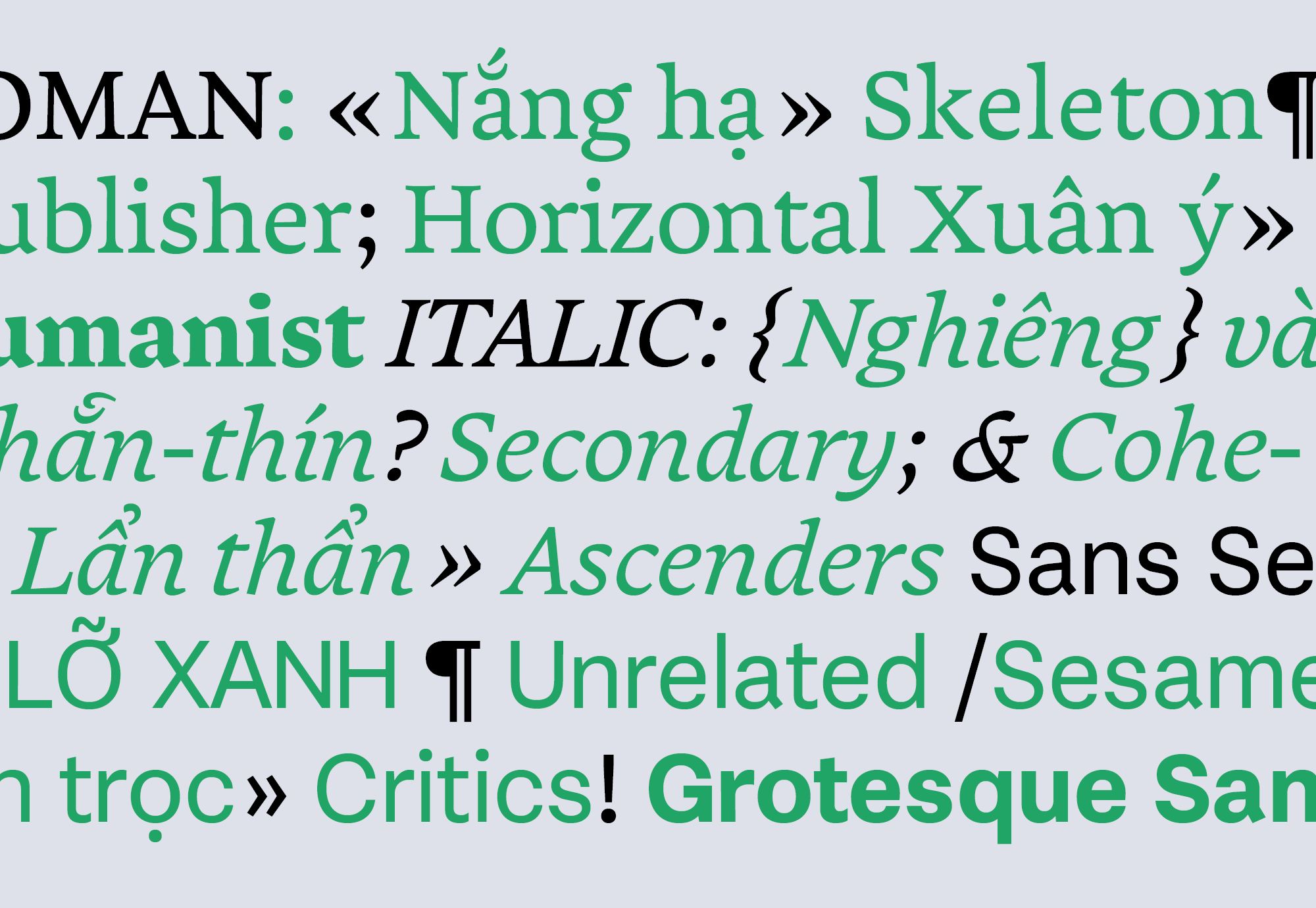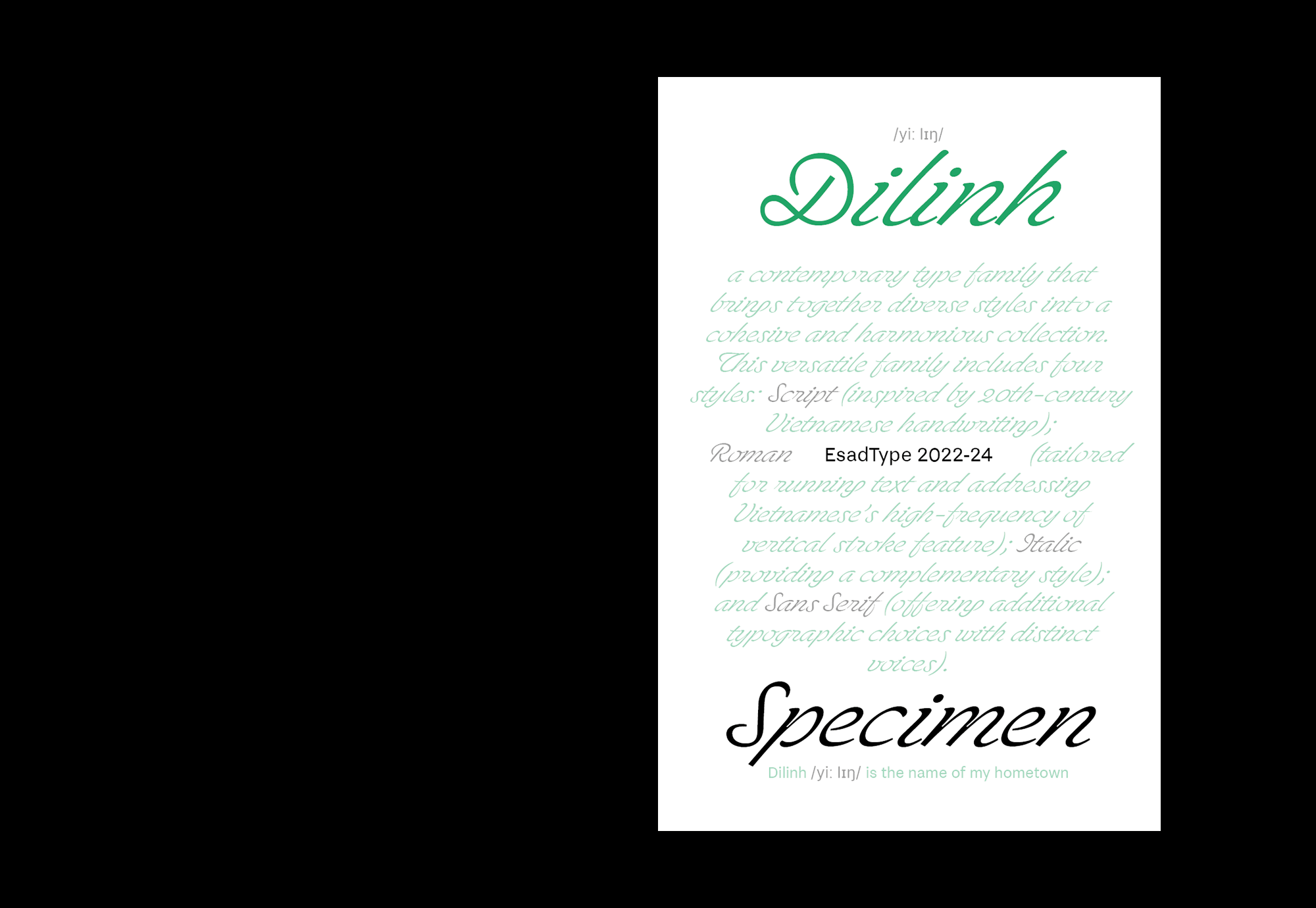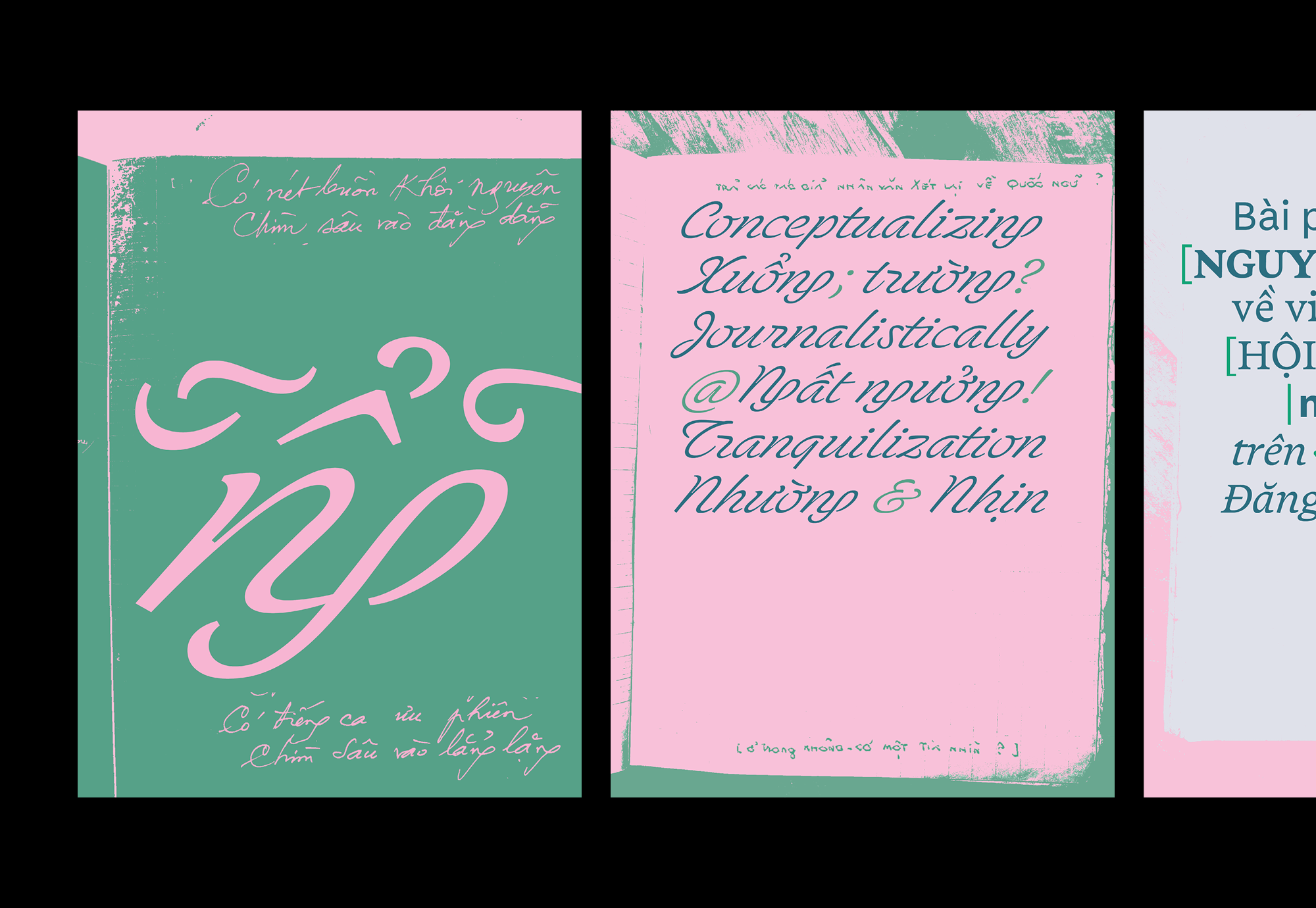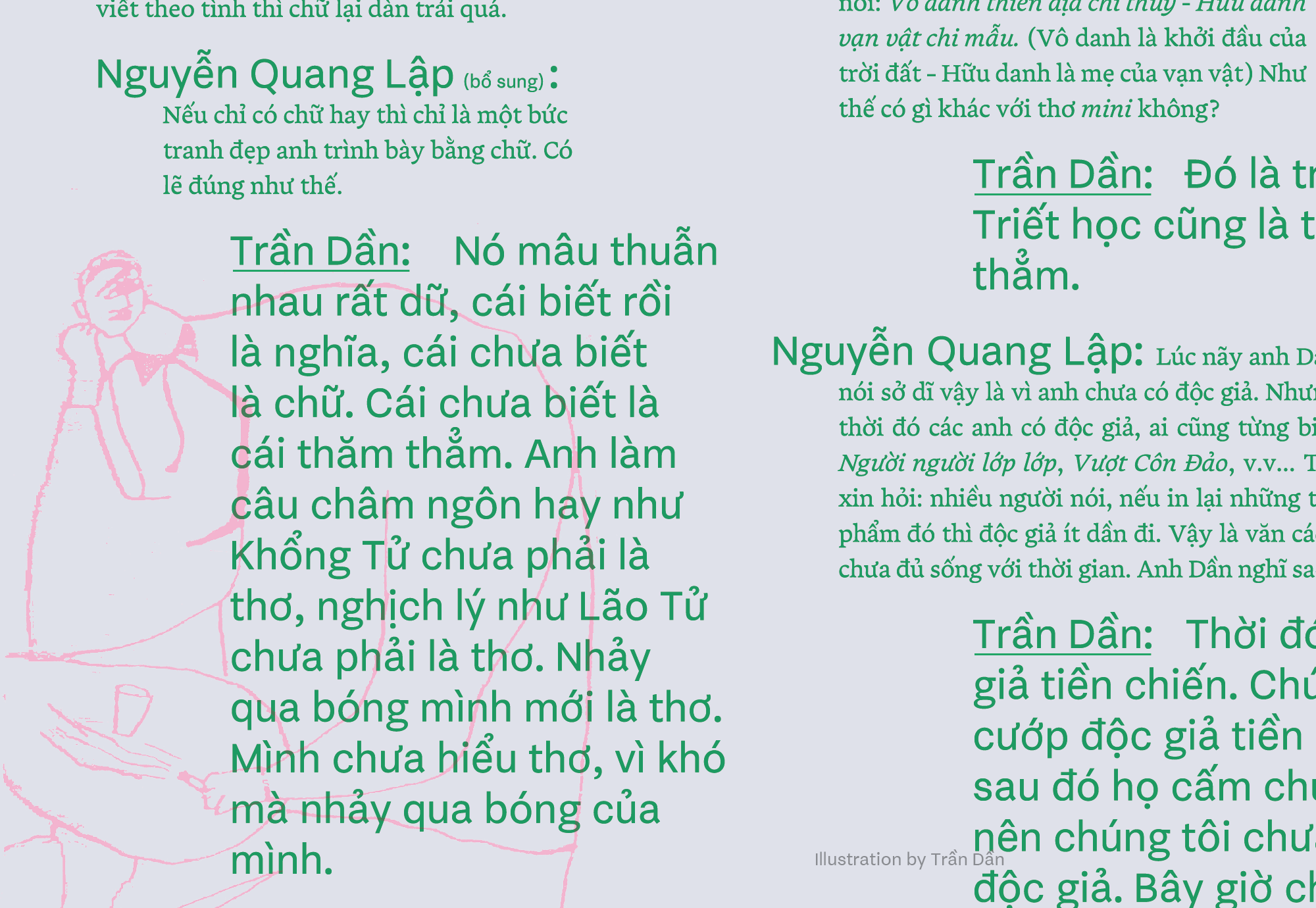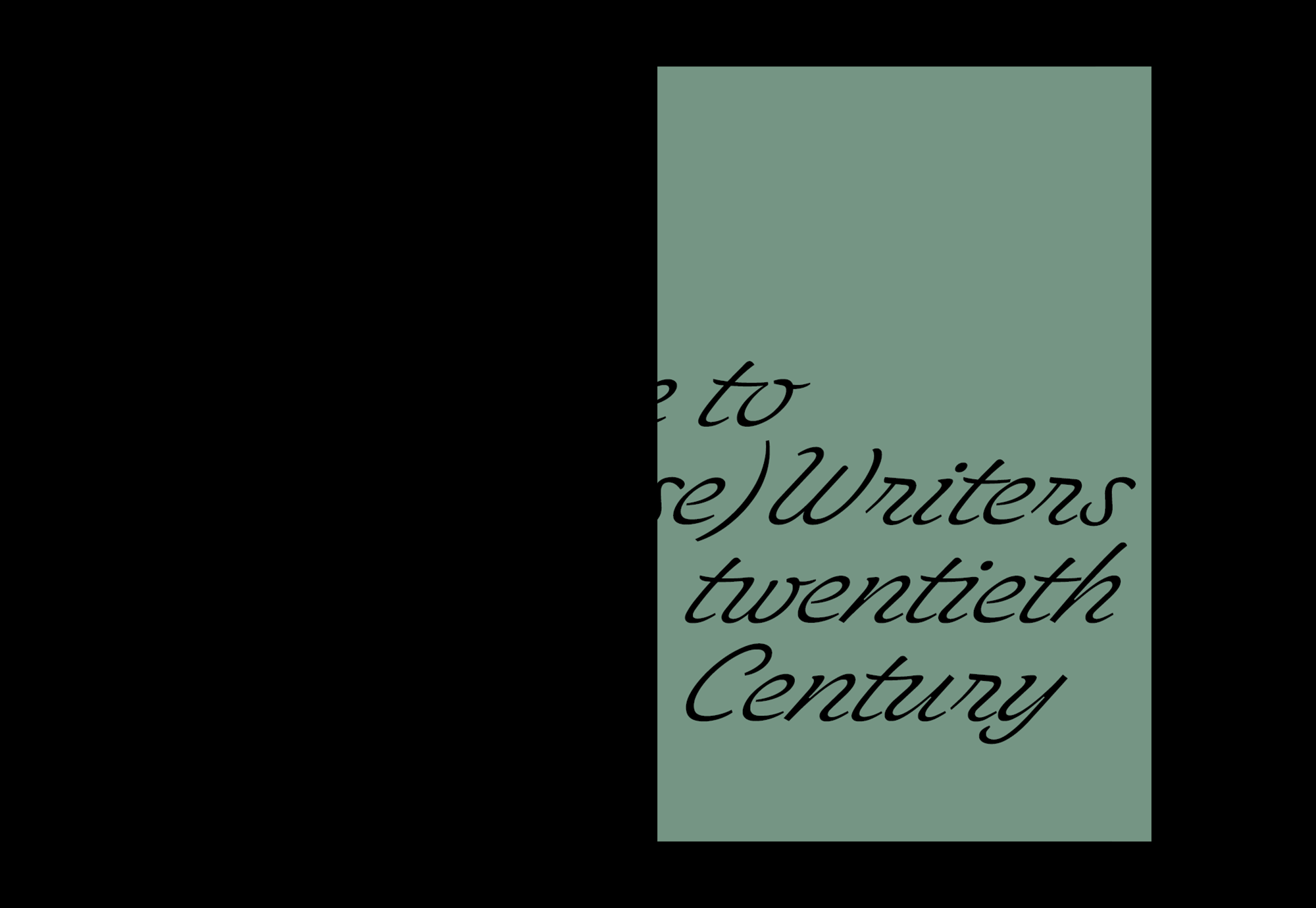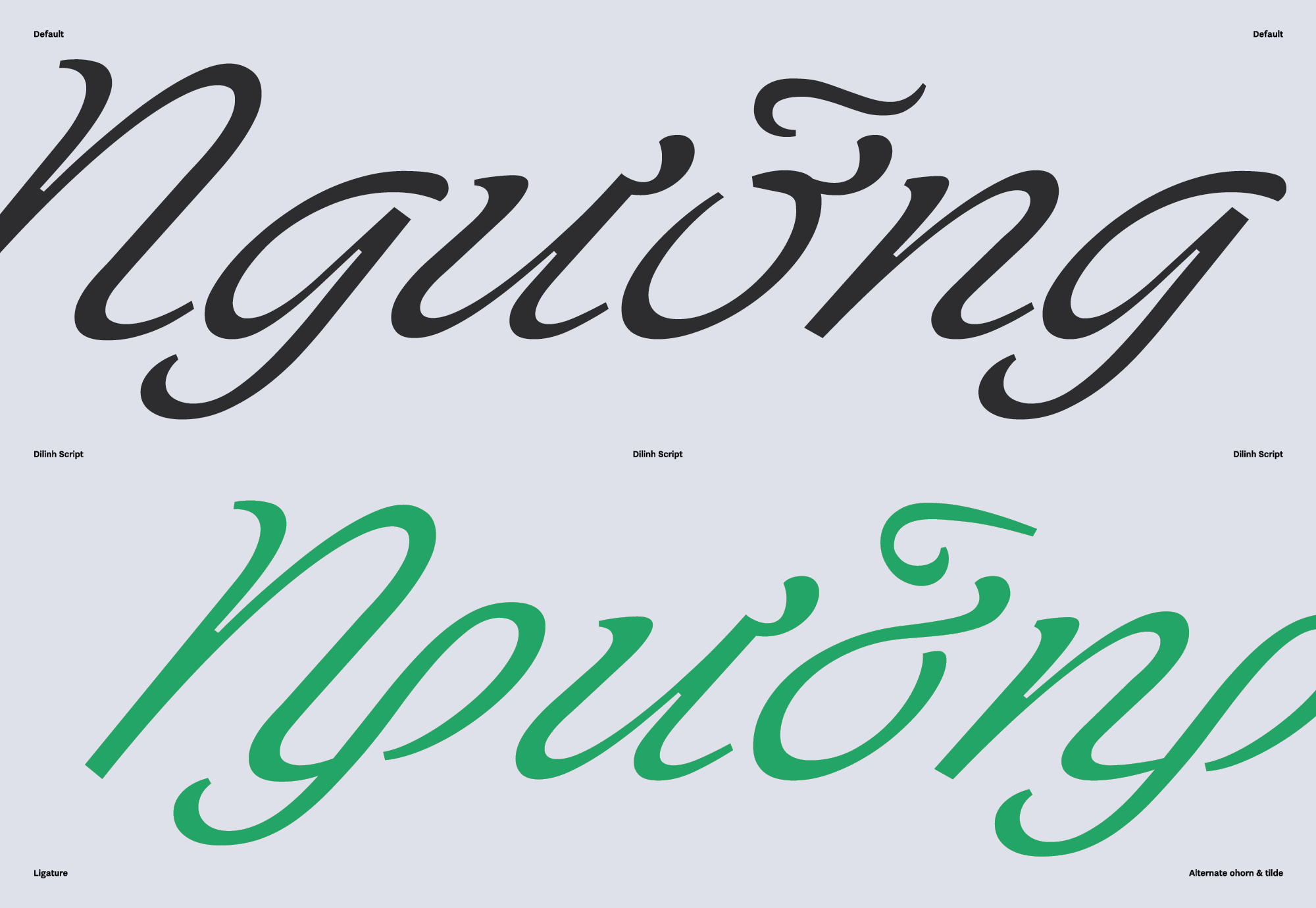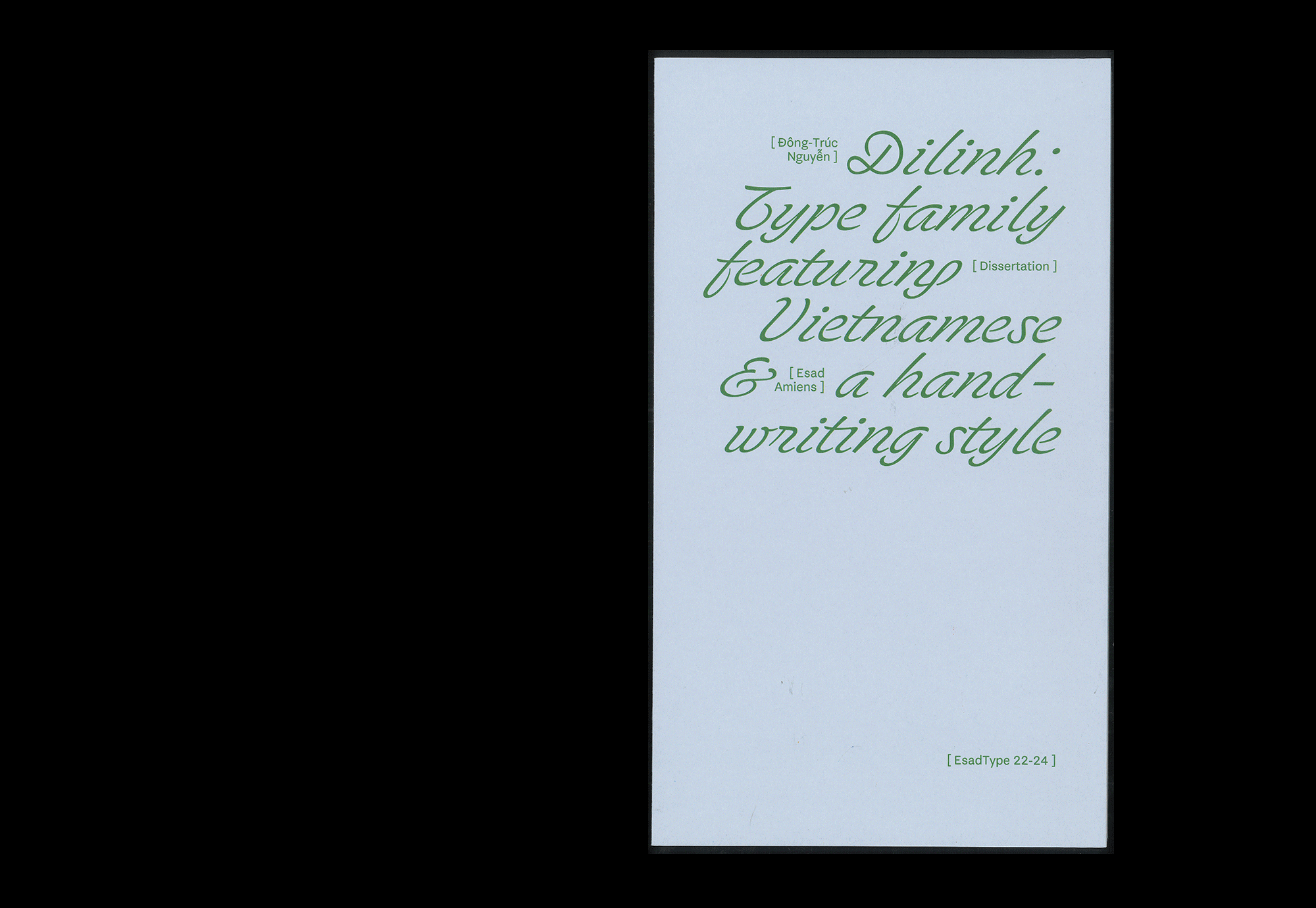
Dilinh is a type family for editorial design that brings together diverse styles into a cohesive and harmonious collection. The project is rooted in two key aspects: Linguistics consideration, where I explore the impact of language features on Vietnamese text and address the issue of excessive vertical strokes; and Handwriting aesthetic, where I aim to capture the expressiveness of stylistic Vietnamese handwriting to a digital format. Dilinh family comprises four distinct subfamilies: Script, Roman, Italic and Sans Serif. Each subfamily serves a unique purpose in enhancing the typographic experience: The Script brings a lively and stylish touch and featuring an unconventional approach to Vietnamese diacritics and ligatures. The Roman is designed to create a warm and cozy atmosphere to enhance reader experience, particularly for Vietnamese content. The Italic provides a complementary style for the Roman. The Sans Serif offers additional typographic choices with distinct voice.